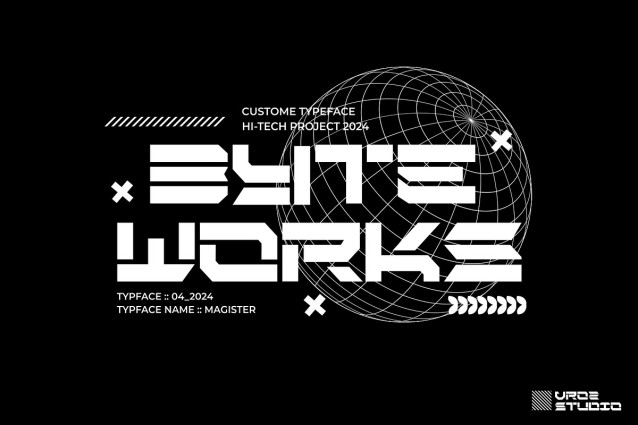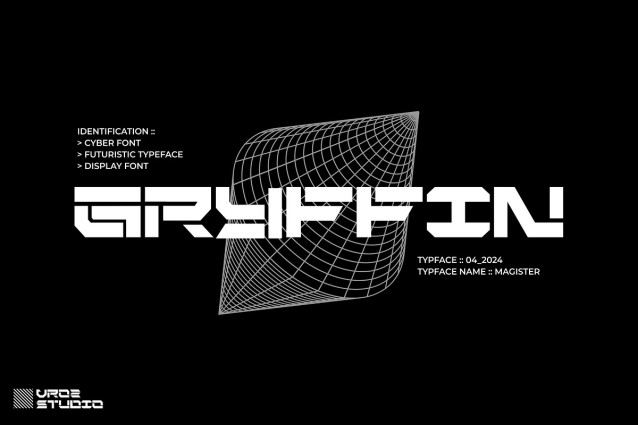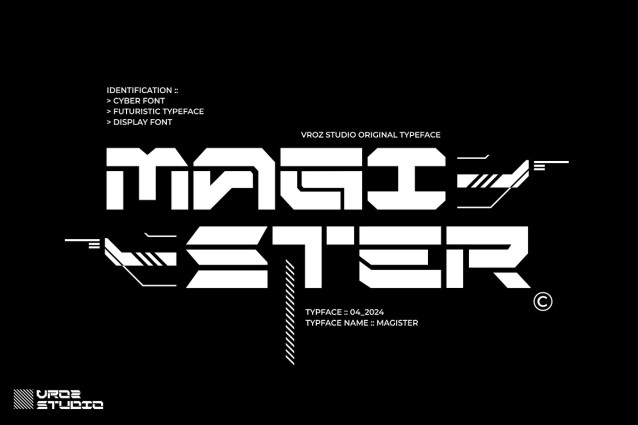
Magister Futuristic Font
Magister Futuristic Font is inspired by a futuristic vibe, especially cyberpunk and futuristic technology. the typeface is based on simple and futuristic tech shapes. this is a hi-tech project created by VROZ STUDIO 2024
MAGISTER FONT It’s perfect for headlines, billboards, magazines, websites, titles, posters, branding, thumbnails, t-shirt designs, streetwear designs, and creative logos, or any project in need of a futuristic touch. With this beautiful futuristic display font, you can truly make your project stand out from the rest. Check out the previews above to get some inspiration on how to use them